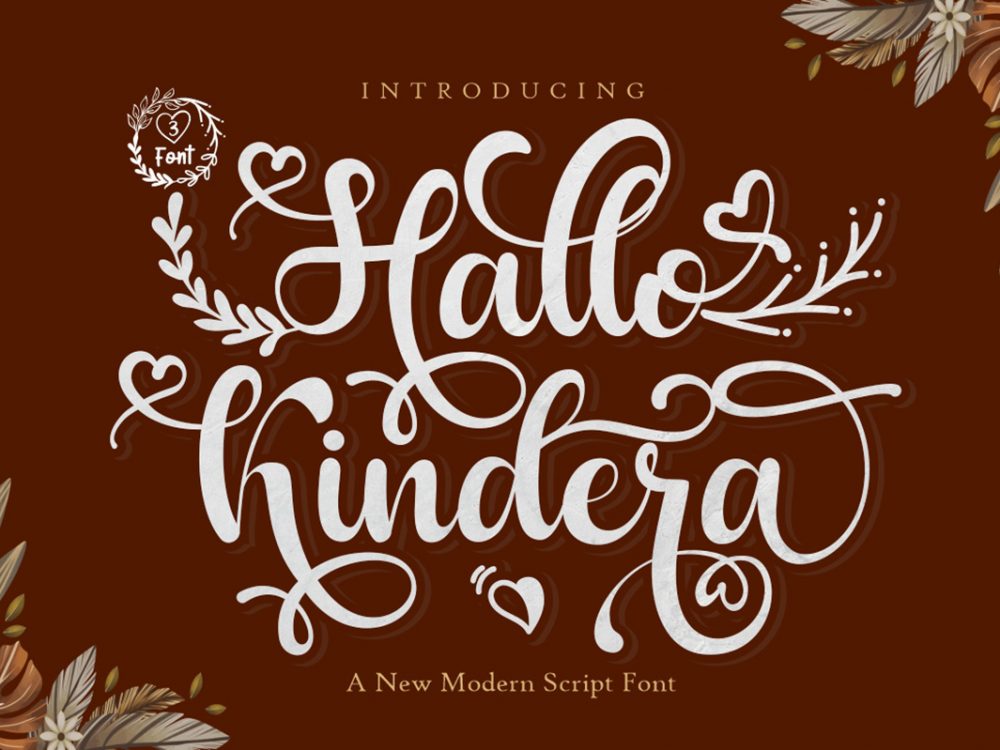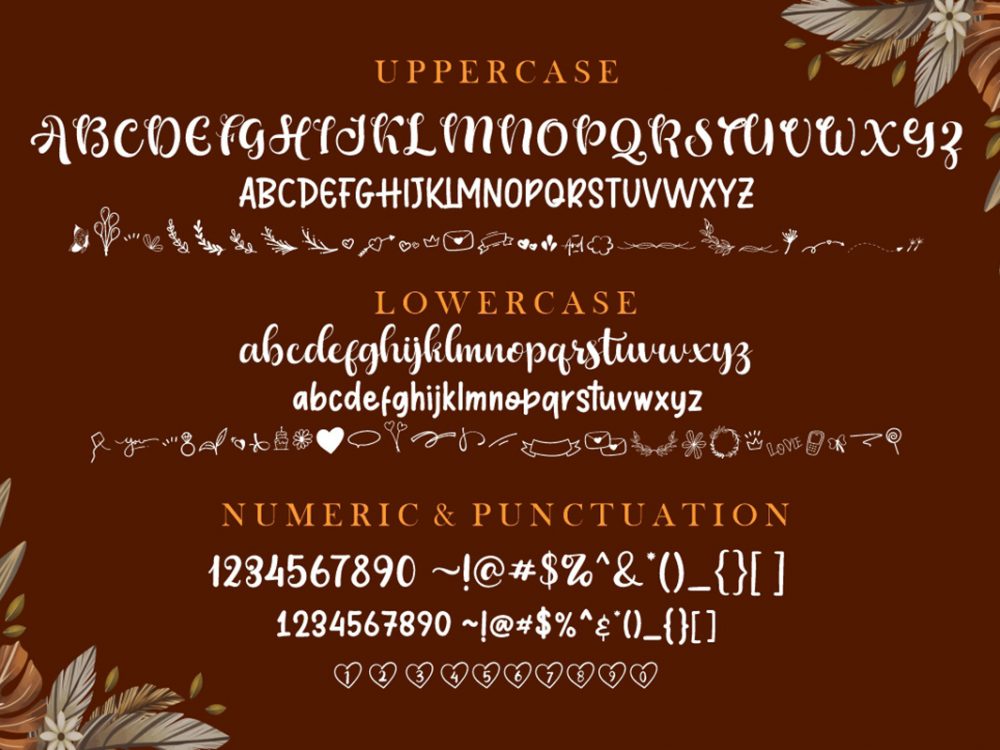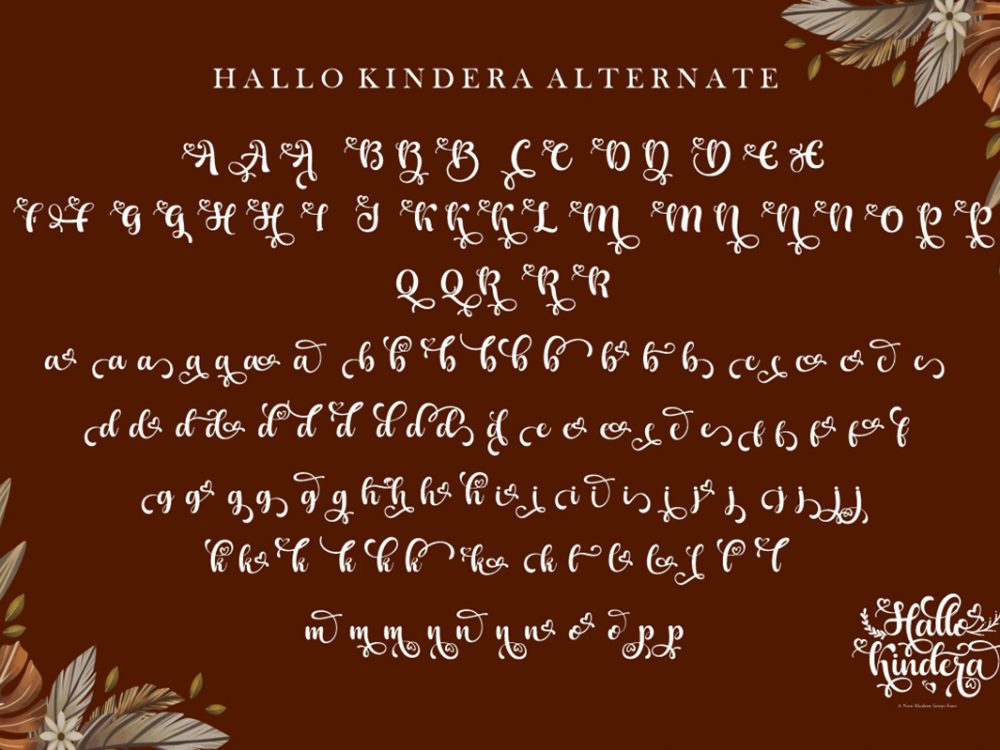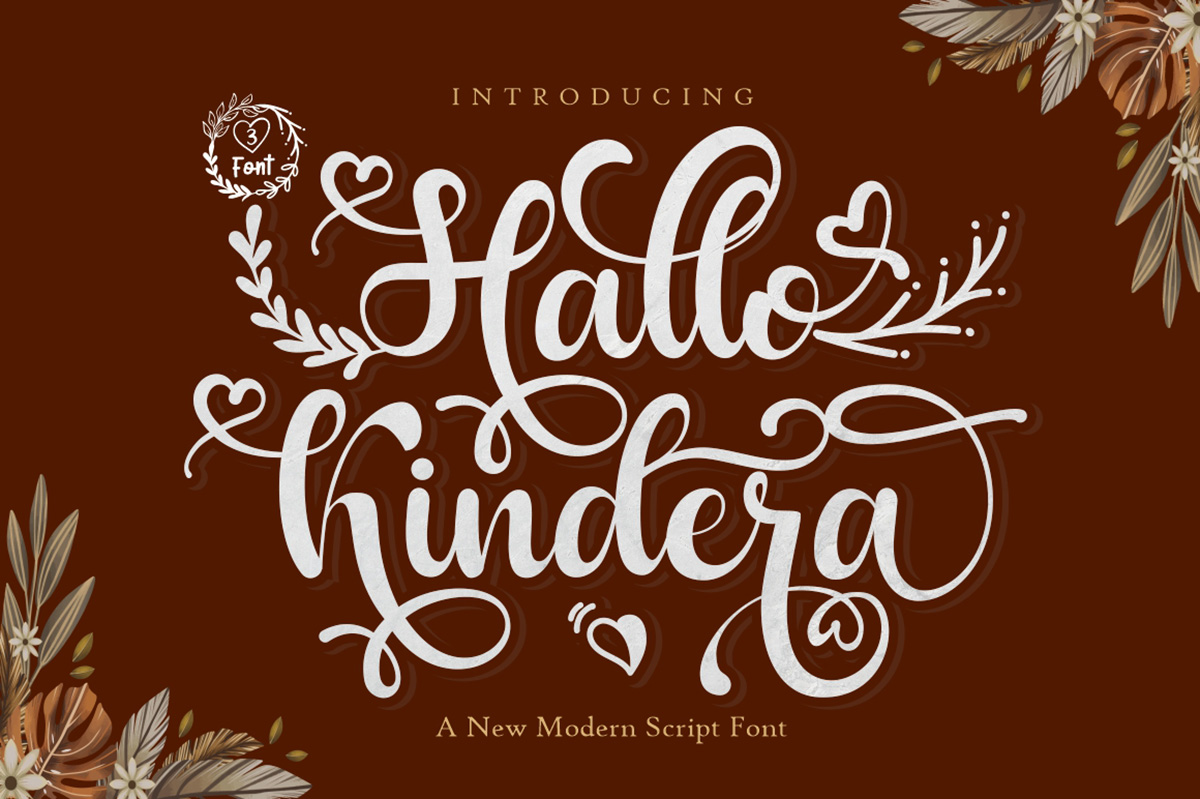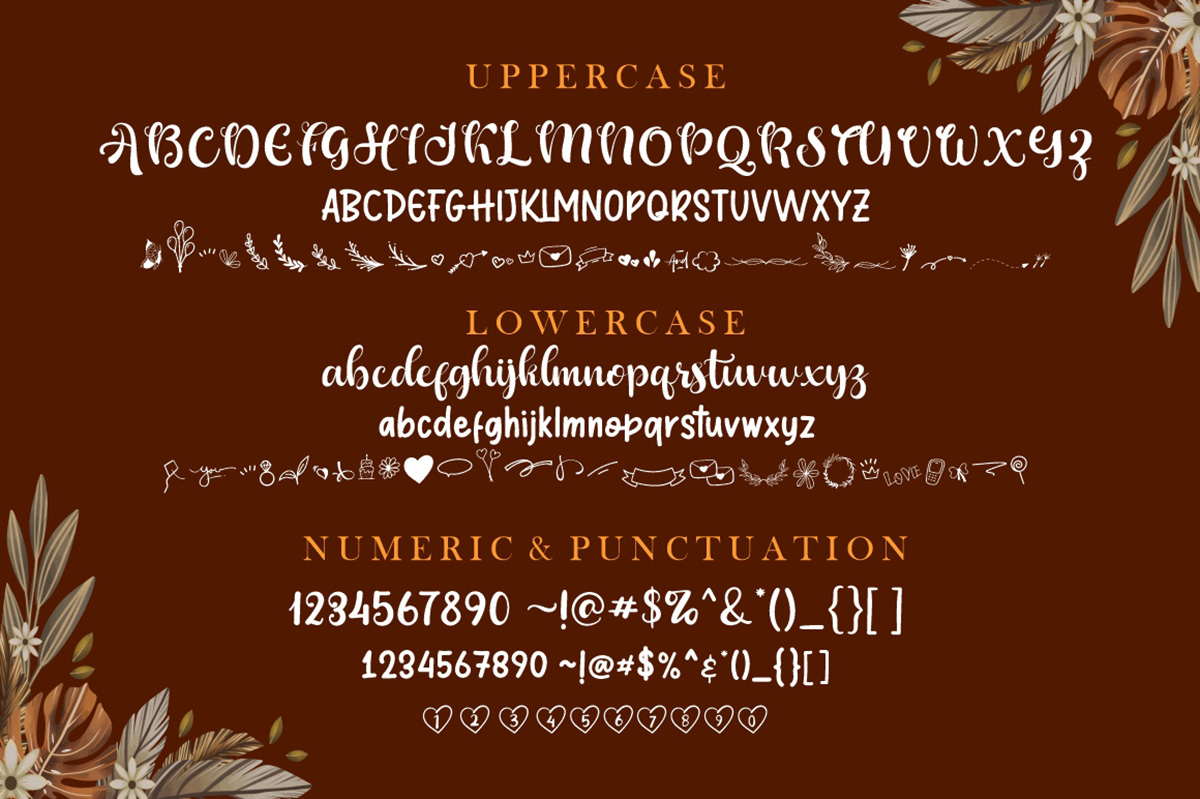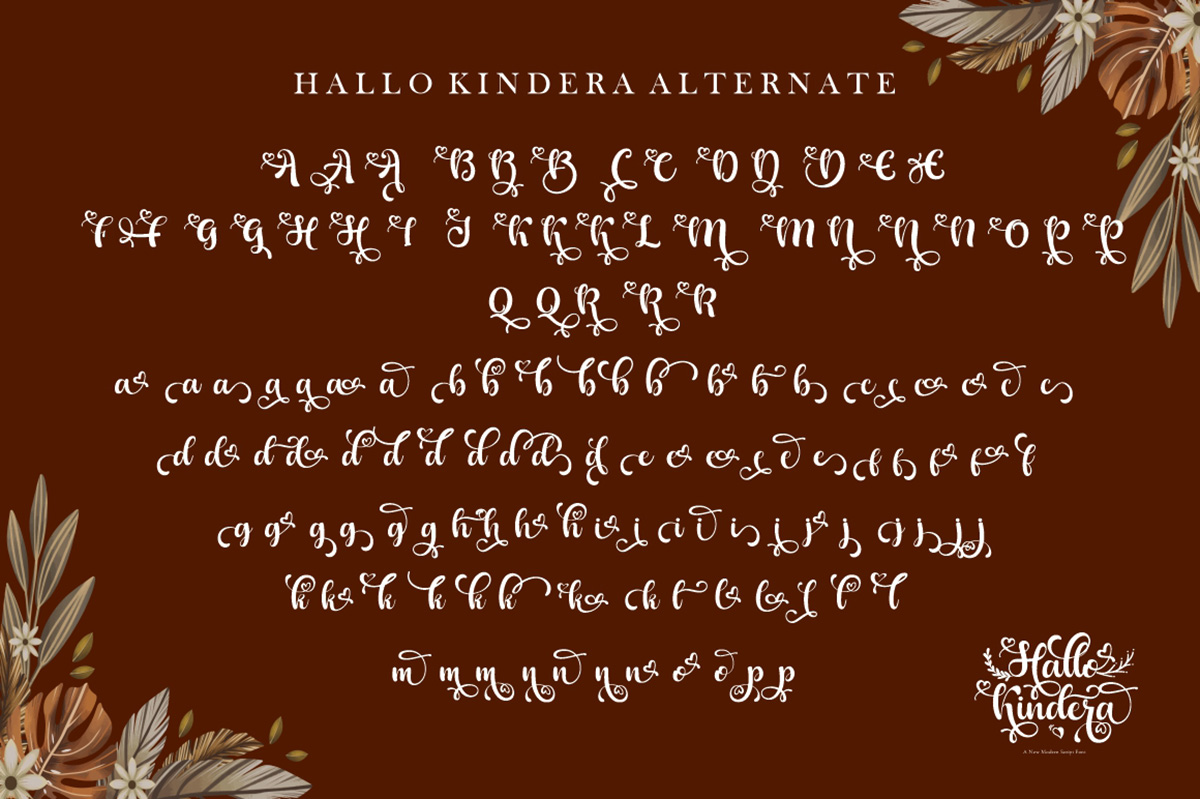
Hallo Kindera Free Font
Hallo Kindera Free Font is a modern script font that feels very elegant that features a modern calligraphic style among other fonts. Use Hallo Kindera Free Font to create memorable romantic posters, wedding invitations, greeting cards, branding, flyers, t-shirt and pillow prints, and more. If you like it don’t forget to check out the full version.